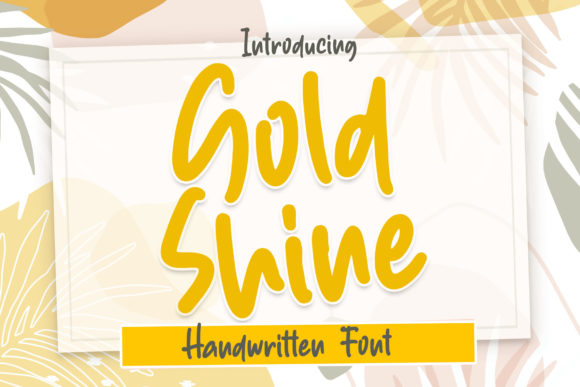
Introducing Gold Shine Font: Add a Joyful Touch to Your Designs
Are you looking for a font that can add a playful and whimsical touch to your designs? Look no further than Gold Shine Font! This cute and quirky handwritten font is perfect for designers and crafters who want to make their creative projects stand out. In this article, we’ll take a closer look at Gold Shine Font and explore how it can elevate your designs to the next level.
What is Gold Shine Font?
Gold Shine Font is a unique and charming handwritten font that’s designed to bring a smile to your face. Its playful and bouncy style makes it perfect for a wide range of design projects, from party invitations and greeting cards to social media graphics and branding materials. With its irregularities and imperfections, Gold Shine Font has a delightfully handmade feel that will add a touch of warmth and personality to your designs.
Key Features of Gold Shine Font
- Cute and Quirky: Gold Shine Font has a playful and whimsical style that’s sure to capture the attention of your audience.
- Handwritten: This font has a beautifully handwritten feel that’s perfect for adding a personal touch to your designs.
- Versatile: Gold Shine Font can be used for a wide range of design projects, from digital graphics to print materials.
- Easy to Read: Despite its playful style, Gold Shine Font is easy to read and understand, making it perfect for use in body text and headings.
How to Use Gold Shine Font in Your Designs
Gold Shine Font is incredibly versatile and can be used in a variety of design projects. Here are a few ideas to get you started:
- Party Invitations: Add a playful touch to your party invitations with Gold Shine Font. It’s perfect for birthday parties, baby showers, and other celebrations.
- Greeting Cards: Use Gold Shine Font to create unique and personalized greeting cards for special occasions.
- Social Media Graphics: Add a pop of personality to your social media graphics with Gold Shine Font. It’s perfect for creating engaging and shareable content.
- Branding Materials: Use Gold Shine Font to create a playful and memorable brand identity. It’s perfect for businesses that want to stand out and showcase their personality.
Tips for Getting the Most Out of Gold Shine Font
Here are a few tips for getting the most out of Gold Shine Font:
- Experiment with Colors: Gold Shine Font looks amazing in a variety of colors. Experiment with different colors to find the perfect combination for your design.
- Mix and Match: Don’t be afraid to mix and match Gold Shine Font with other fonts. It’s a great way to add visual interest and create a unique design.
- Use it Sparingly: While Gold Shine Font is playful and fun, it can be overwhelming if used too much. Use it sparingly to create a balanced design.
Gold Shine Font is a unique and charming handwritten font that’s perfect for designers and crafters who want to add a playful touch to their designs. With its cute and quirky style, Gold Shine Font is sure to capture the attention of your audience and make your designs stand out. Whether you’re creating party invitations, greeting cards, social media graphics, or branding materials, Gold Shine Font is a great choice. So why not give it a try and see how it can elevate your designs to the next level?